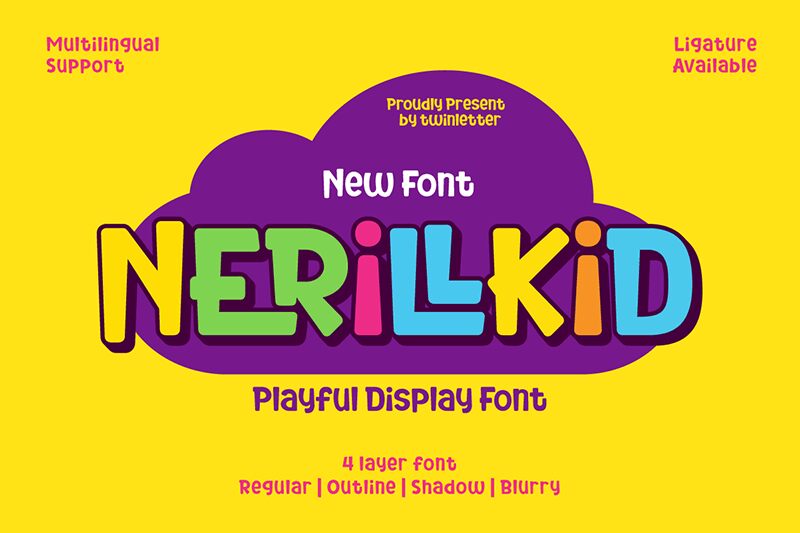
Nerillkid font family by twinletter features visual variety thanks to the layered approach so popular and so needed in modern design! The free font includes 2 font styles that when combined allow endless creativity opportunities and results. Each individual letter doesn’t just feature a mix of different (not necessarily matching) styles, angles, and colors, they also appear like their styles were borrowed from various fonts.
With all that being said, a joyful and child-like feel is only natural! These all-caps fonts are ideal for poster, flyer, or magazine cover designs as well as book covers (especially when it comes to children). Coloring books also greatly benefit from the font’s special look, as do game titles, app design, social media, and websites.